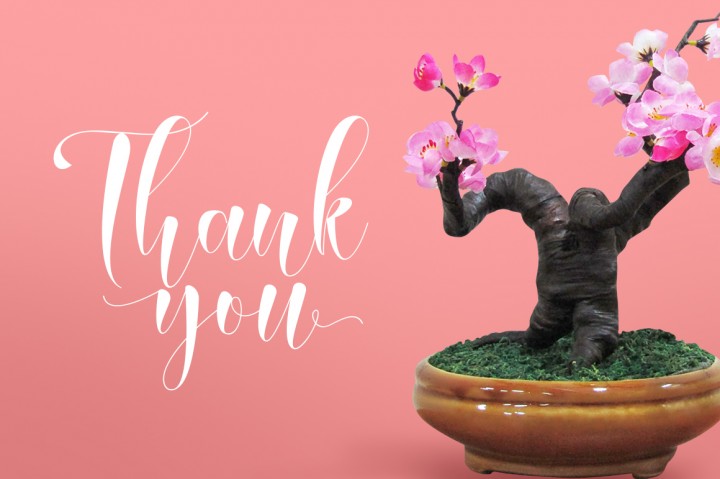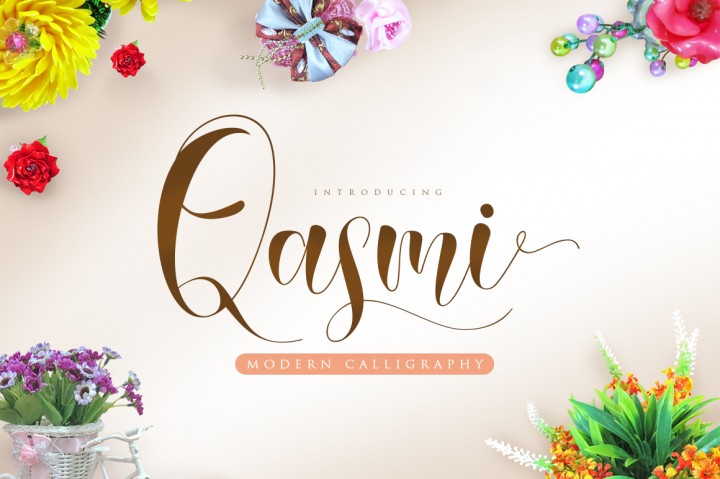
Qasmi Script
Qasmi Script Font
Qasmi Scrips is a beautiful handmade script font, modern calligraphy & fresh typeface. Qasmi Script suitable for logo, branding, invitation, greeting card, signature, poster and any design that you create.